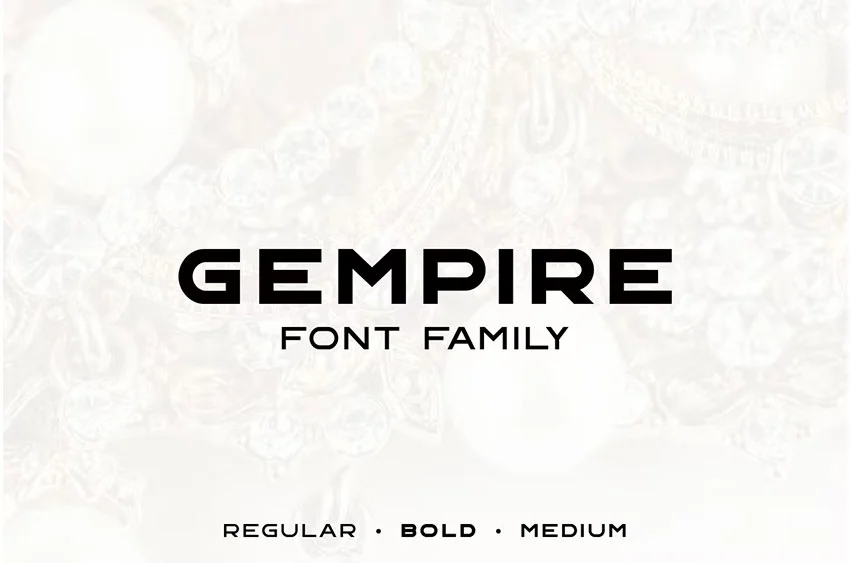
Gempire Font
Gempire Font is a font family made to create stylish luxury fashion style headers, titles, and text.
It consists of three types:
• Regular
• Bold
• Medium